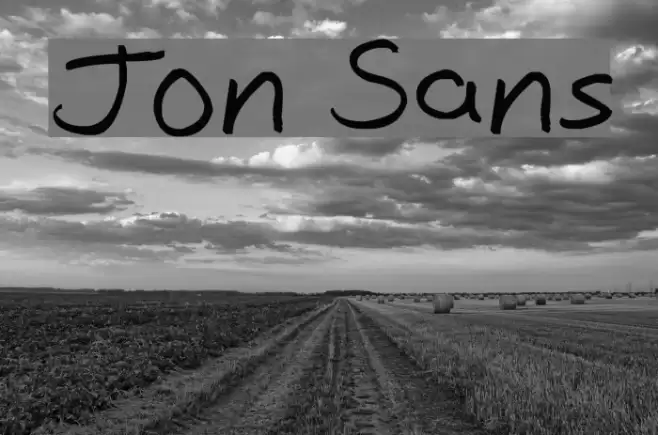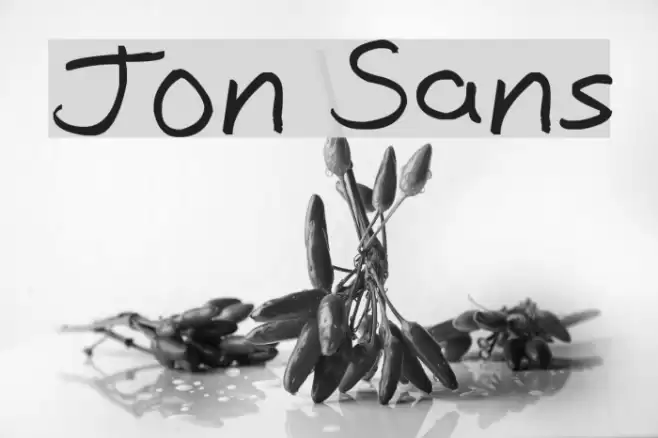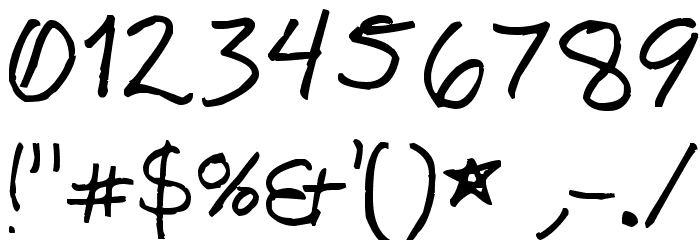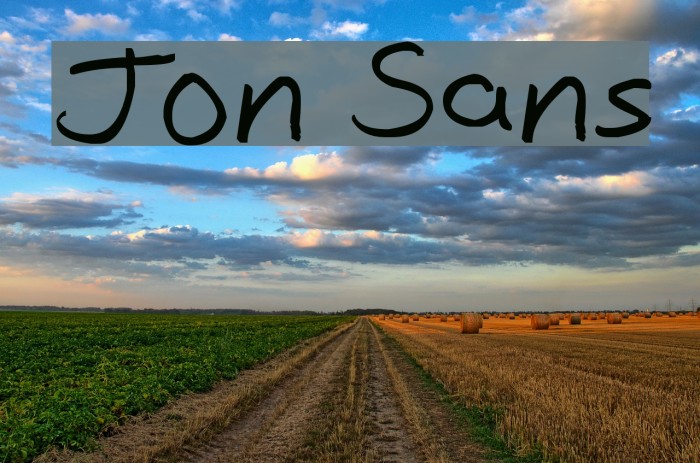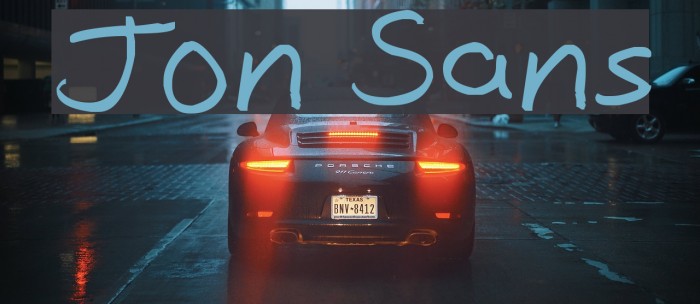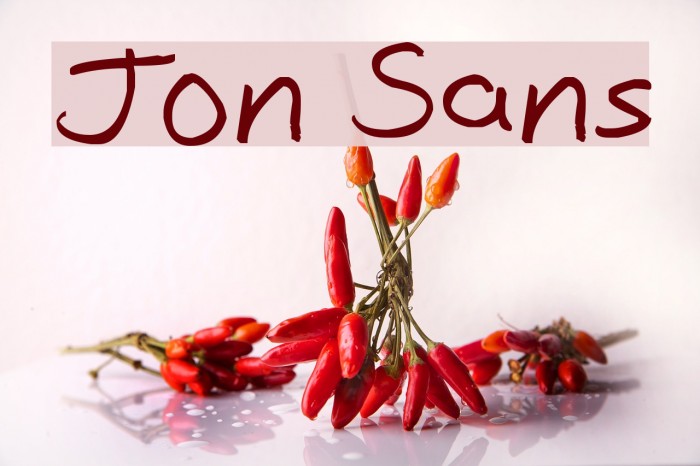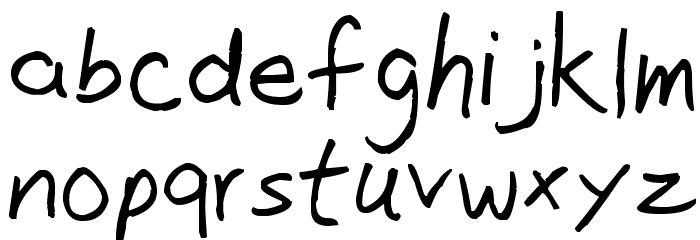
Jon Sans Font
Jon Sans Description
This font exhibits a casual, handwritten style with a playful and informal appearance. The characters are slightly irregular, giving it a personal and approachable feel. The uppercase letters maintain a consistent height, while the lowercase letters vary slightly in size, adding to the font's charm. The numbers and special characters follow the same informal style, making them blend seamlessly with the letters. The strokes are moderately thick, with a medium contrast between thick and thin parts, enhancing readability while maintaining a relaxed aesthetic. This font is ideal for projects that require a friendly and informal touch.
A casual, handwritten font with a playful and informal style from Uncategorized fonts.
- Proposed Projects: Greeting cards, personal blogs, children's books, casual invitations, and social media graphics.
- Overall Style: Casual
- Use Case: Headlines, Logos, Informal text